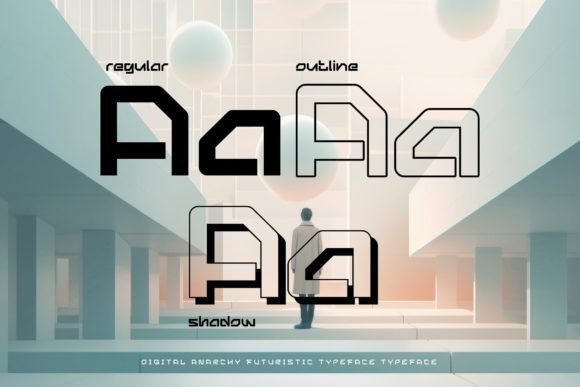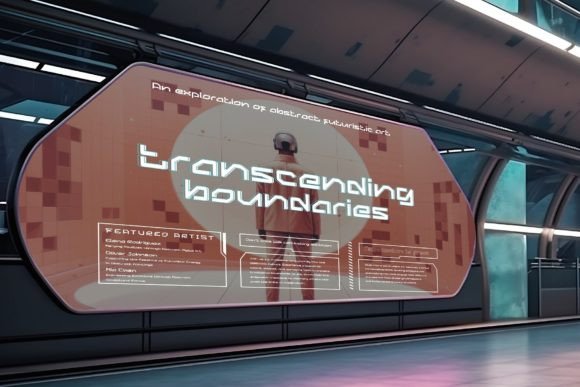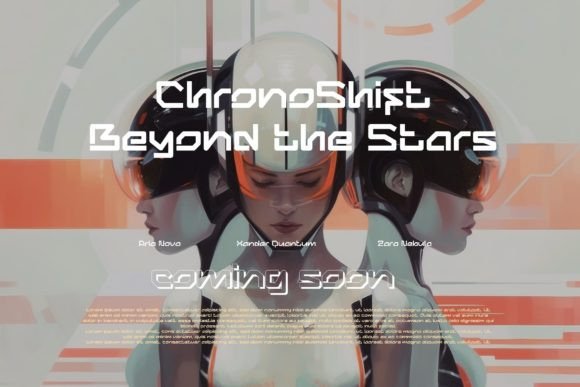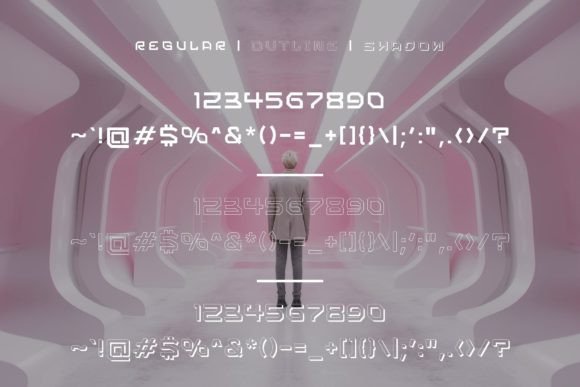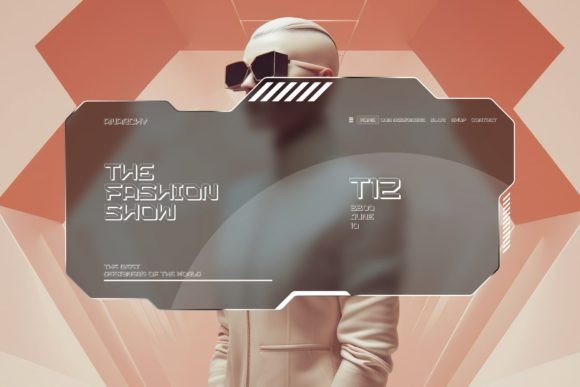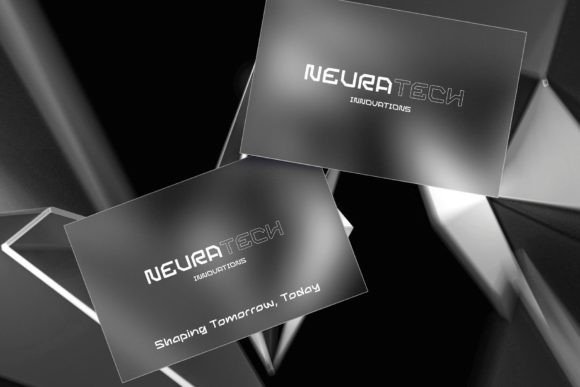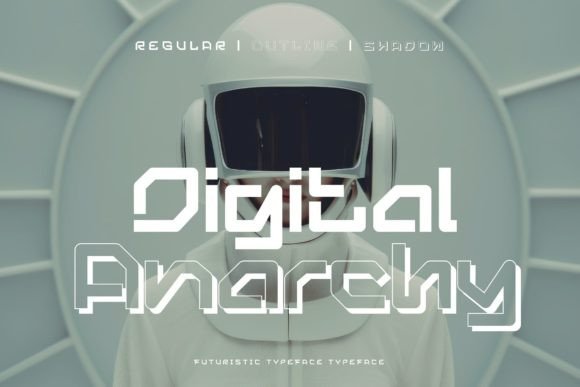
Unleash the Future of Design with Digital Anarchy Font
Step into a world where technology reigns supreme and design knows no bounds. Introducing the Digital Anarchy Font, a revolutionary typeface that embodies the perfect blend of sleek design and avant-garde aesthetics. This futuristic font is designed to channel the essence of a world where innovation and creativity know no limits.
The Essence of Digital Anarchy
Digital Anarchy is more than just a font – it’s an experience. With its razor-sharp edges and a design that looks ahead to the digital horizon, this typeface is perfect for visionary projects that aim to break boundaries and redefine norms. Whether you’re crafting a futuristic game interface, an innovative app, or just aiming to give your graphics a forward-thinking edge, Digital Anarchy is the perfect choice.
Key Features of Digital Anarchy Font
• Razor-sharp edges: The font’s sharp edges give it a cutting-edge look that’s perfect for futuristic designs.
• Avant-garde aesthetics: Digital Anarchy’s unique design ensures that your project stands out from the crowd.
• Highly legible: Despite its futuristic design, the font remains highly legible, making it perfect for body text and headings.
• Versatile: Digital Anarchy can be used for a wide range of projects, from game interfaces to innovative apps, and even graphic designs.
Why Choose Digital Anarchy Font?
In a digital age where design is everything, Digital Anarchy Font offers a unique opportunity to elevate your project to the next level. Here are just a few reasons why designers and crafters are choosing Digital Anarchy:
• Stand out in a crowded market: With Digital Anarchy, you can ensure that your project stands out from the competition and grabs the attention of your audience.
• Convey a forward-thinking message: The font’s futuristic design conveys a sense of innovation and forward thinking, perfect for brands that want to showcase their commitment to progress.
• Endless creative possibilities: Digital Anarchy’s versatility means that you can use it for a wide range of projects, from digital interfaces to print designs.
How to Use Digital Anarchy Font
Using Digital Anarchy Font is easy. Here are a few tips to get you started:
• Pair it with a neutral font: Pair Digital Anarchy with a neutral font to create a striking contrast and add visual interest to your design.
• Experiment with colors: The font’s sleek design looks great in a range of colors, from bold brights to metallic finishes.
• Use it for headlines and titles: Digital Anarchy’s unique design makes it perfect for headlines and titles, where you want to grab the attention of your audience.
Digital Anarchy Font is a game-changer for designers and crafters who want to push the boundaries of innovation and creativity. With its razor-sharp edges, avant-garde aesthetics, and highly legible design, this font is perfect for visionary projects that aim to break boundaries and redefine norms. So why wait? Embrace the chaos and design the future with Digital Anarchy Font.